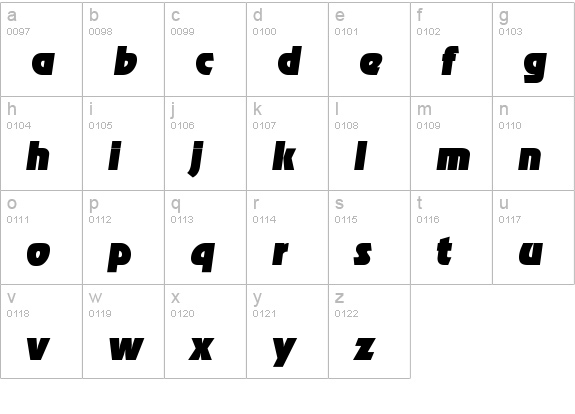
Ragtime-HeavyIta Font Details
Ragtime-HeavyIta font is a unique and captivating typeface that effortlessly combines the charm of ragtime music with a modern twist. Its bold and italic design exudes a sense of energy and rhythm, making it perfect for projects that require a touch of dynamism and playfulness. With its strong and defined letterforms, Ragtime-HeavyIta font makes a bold statement and grabs attention wherever it is used. Its distinctive characters are carefully crafted, ensuring legibility without sacrificing style. Whether you're designing a poster, a logo, or even a website, this font will add a touch of personality and creativity to your project. And the best part? Ragtime-HeavyIta font is freely available to download at FontsMarket.com. This means that you can easily access and use this incredible font without any limitations or restrictions. Whether you're a professional designer or a casual enthusiast, this font is a valuable addition to your font library. So don't miss out on the opportunity to enhance your designs with the captivating Ragtime-HeavyIta font. Download it for free at FontsMarket.com and let your creativity soar to new heights. Let the rhythm of this font guide your design choices and make your projects stand out from the crowd.